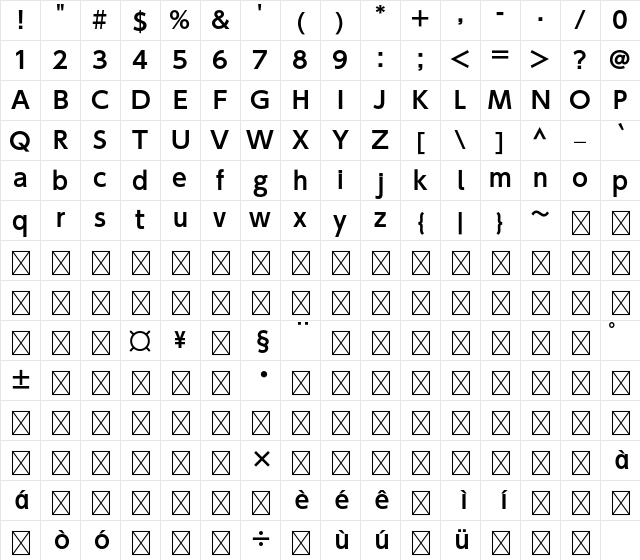
Complete MO UDShinGo SC Gb4 DB glyph index. Displaying only characters natively supported by MO UDShinGo SC Gb4 DB font.
MO UDShinGo SC Gb4 is a composed and adaptable typeface that performs quietly and consistently across a wide range of design contexts.